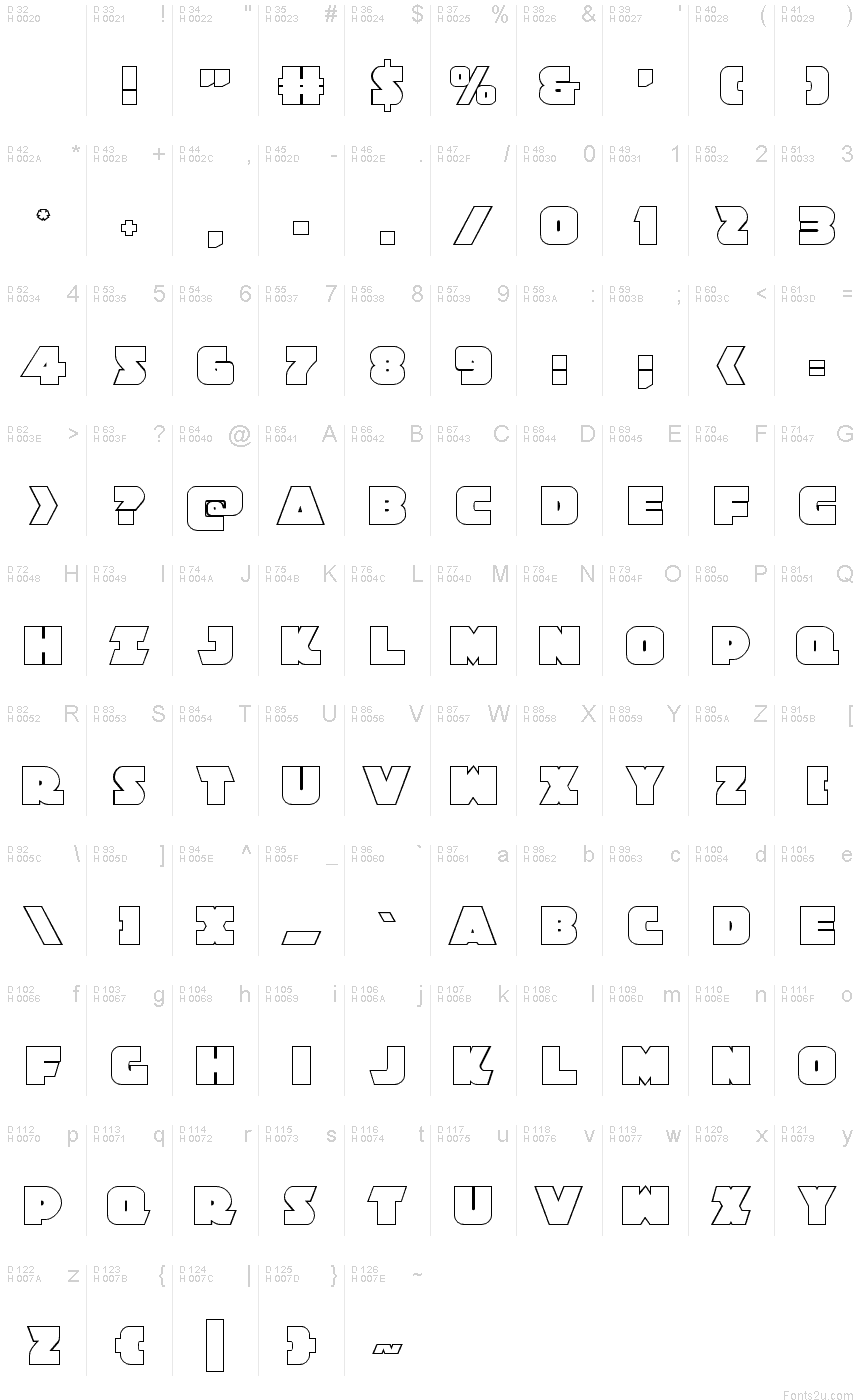
Jedi Special Forces Outline by Iconian Fonts is a free futuristic outlined display font with broad, tightly packed capitals and a forceful sci-fi silhouette. Deep notches, slanted cuts, and a mix of squared and rounded forms make the lettering feel engineered rather than merely geometric.
Movie and game title cards are its strongest territory, especially for space combat or high-tech settings. It also suits esports branding and convention merchandise. The hollow, armor-like shapes tie those uses to military science fiction and futuristic action.
Jedi Special Forces Outline